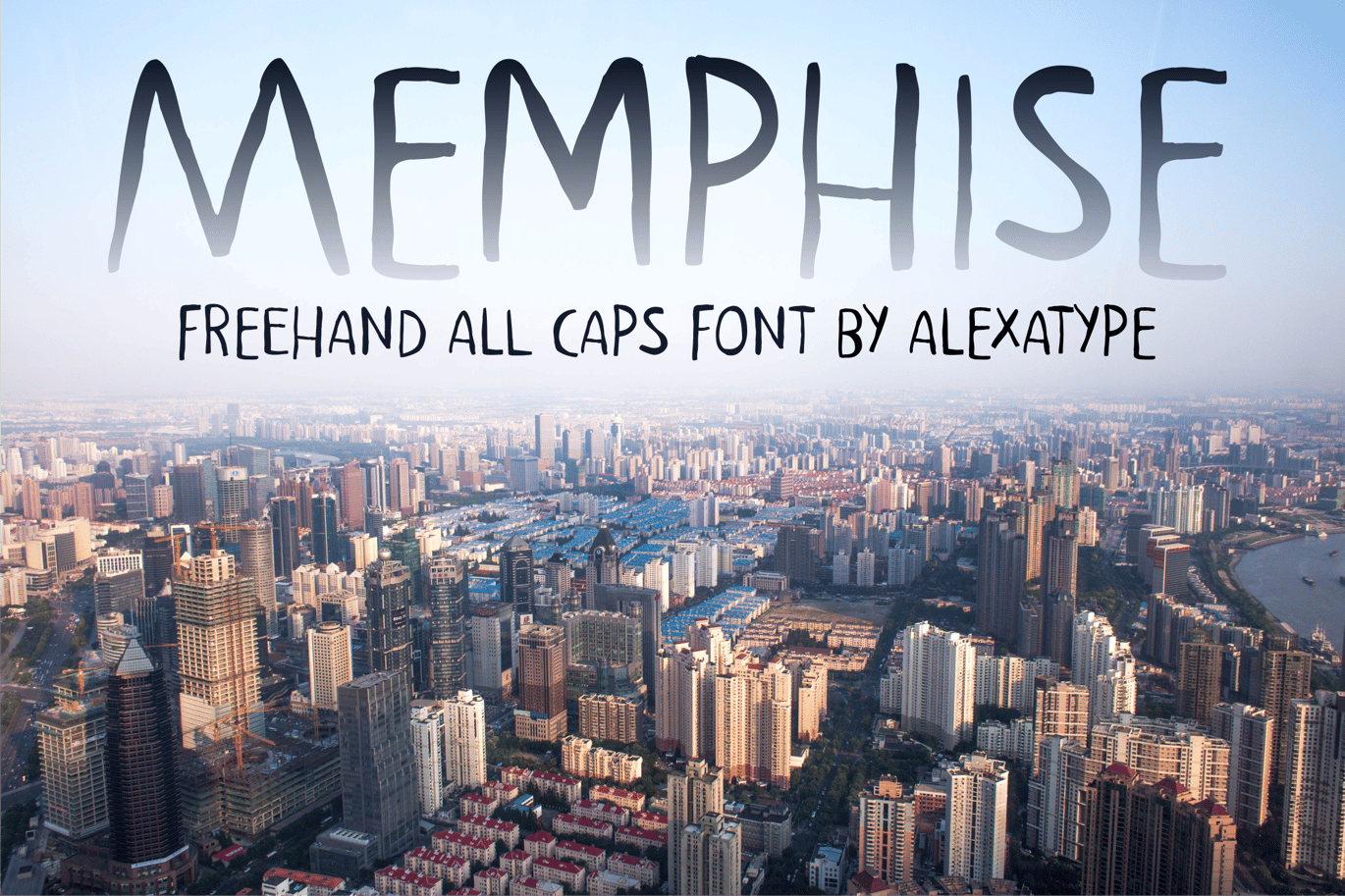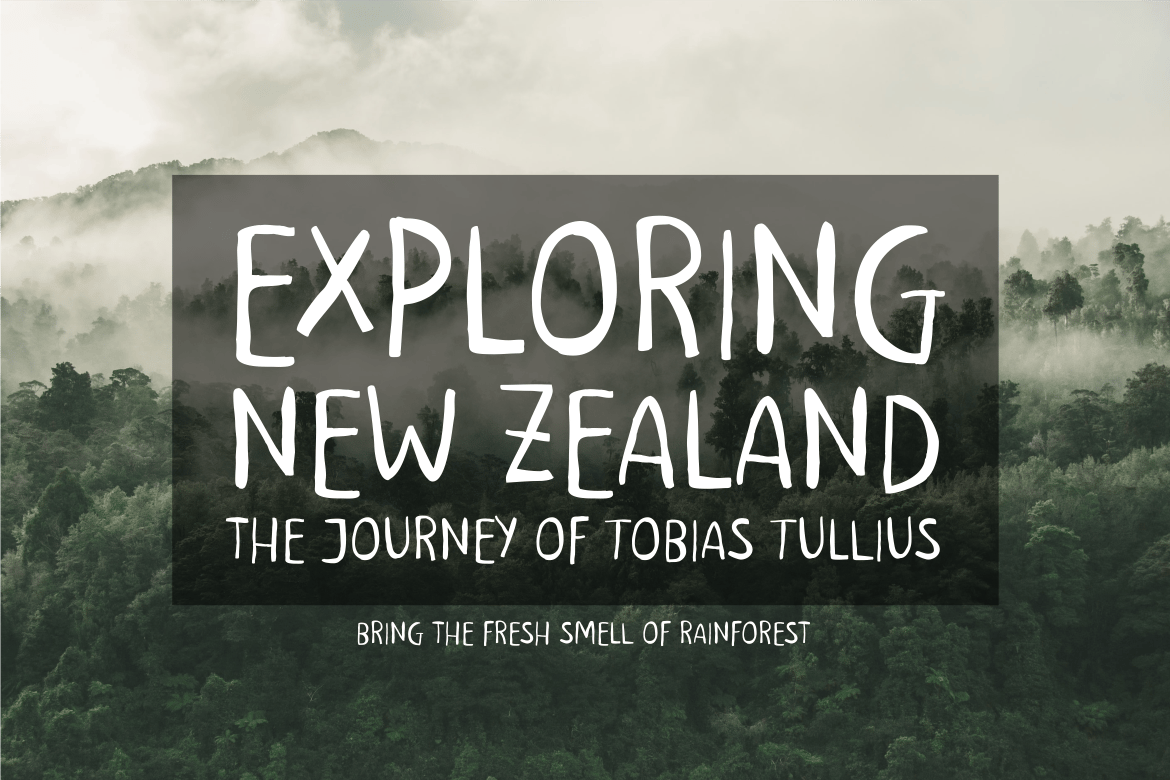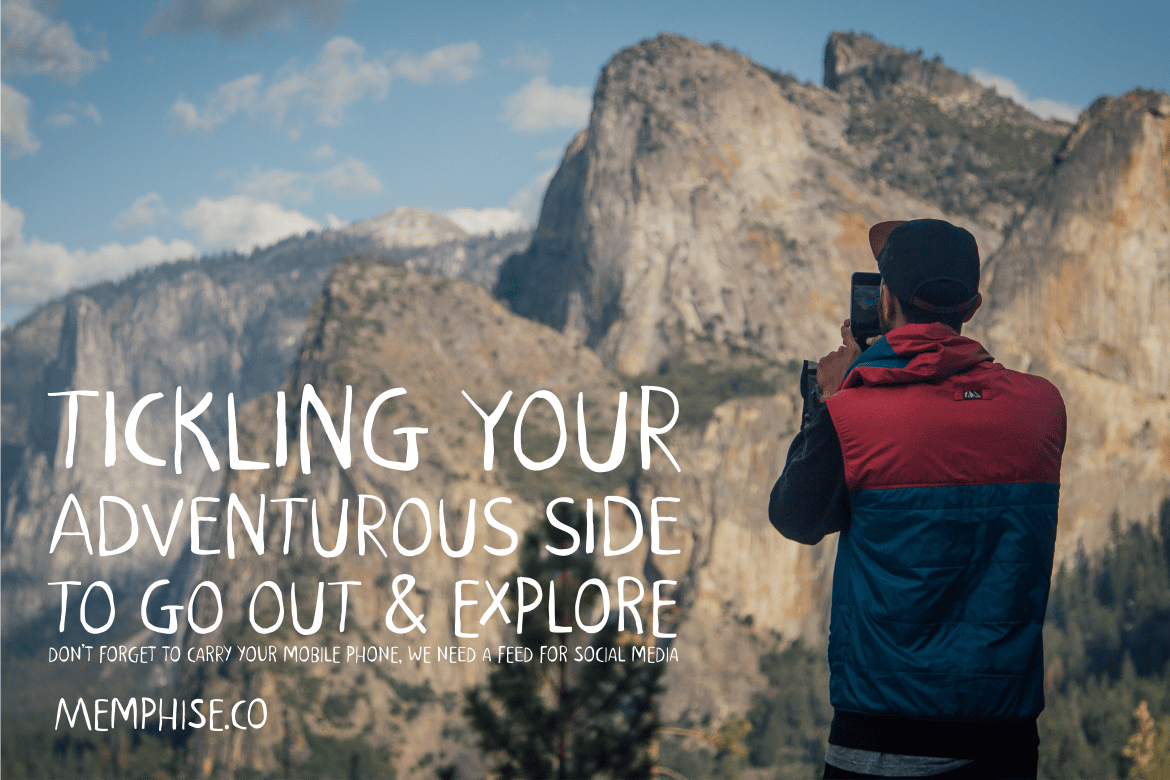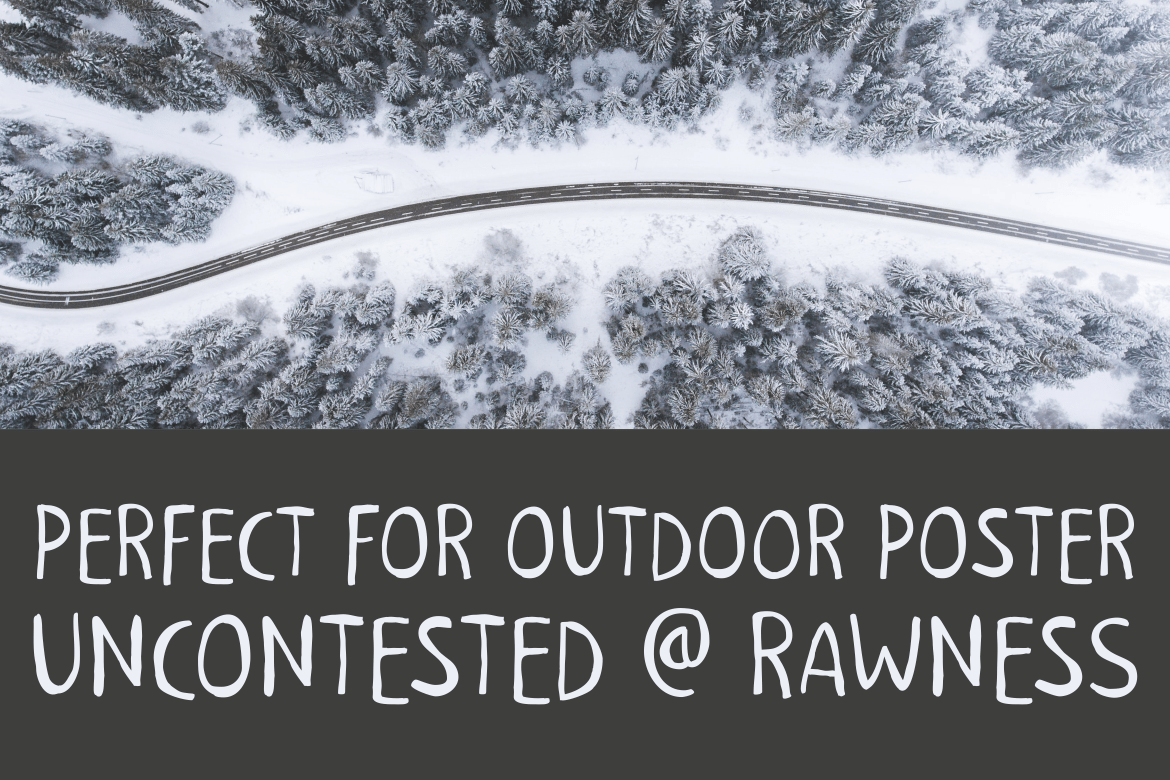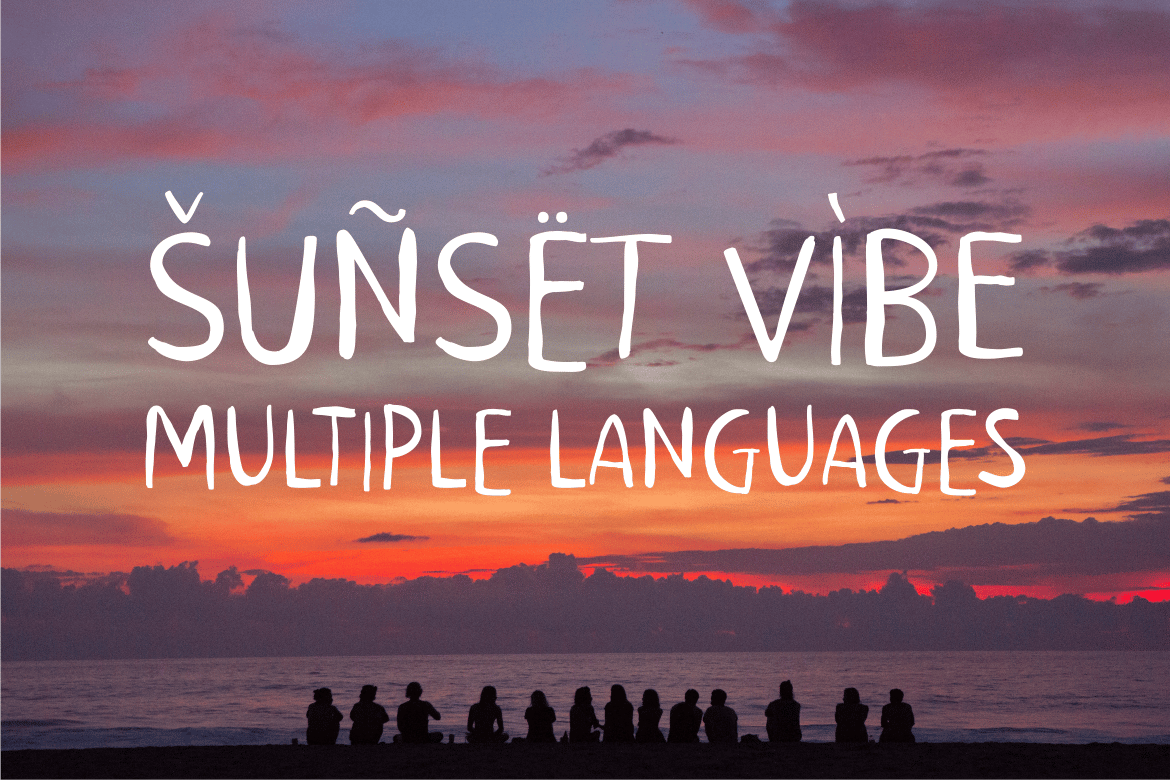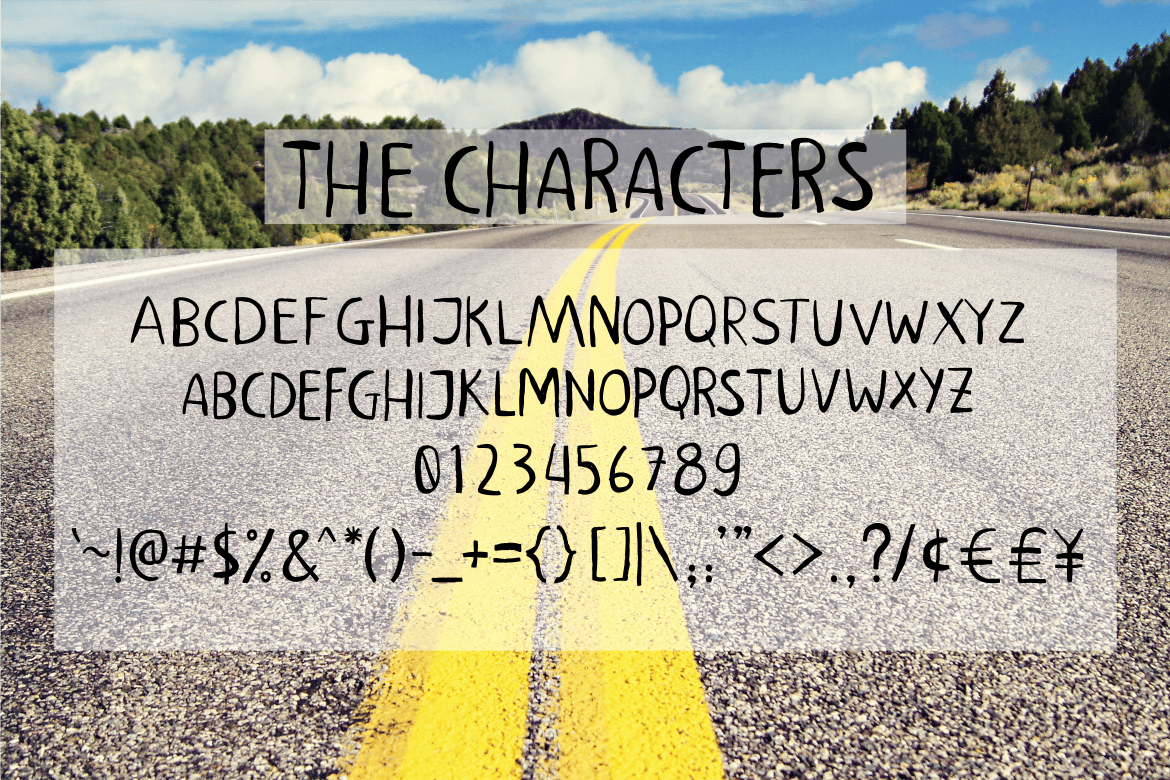
Rustic Adventure Font – Memphise
Memphise is a rustic, weathered display font designed for travel-inspired visuals, outdoor branding, and adventure storytelling. Its textured, slightly distressed letterforms bring a sense of wanderlust and authenticity, making it perfect for travel blogs, nature posters, hiking apparel, and photography overlays. Whether you’re crafting inspiring social media graphics or rugged outdoor signage, Memphise adds an organic, untamed feel to any design.
- Raw & Rustic Aesthetic – Perfect for adventure-themed designs and nature branding.
- Handcrafted, Distressed Look – Creates an authentic, weathered texture.
- Ideal for Outdoor Posters & Travel Graphics – Enhances scenic landscapes and adventure typography.
- Great for Branding & Apparel – Works seamlessly on outdoor gear, hiking merch, and rustic packaging.
Memphise is the ideal companion for travel bloggers, outdoor enthusiasts, and brands looking to capture the raw beauty of nature. Its distressed letterforms evoke adventure and exploration, making it perfect for wilderness campaigns, tourism branding, and lifestyle editorials. Whether you’re designing sunset-inspired posters, mountain expedition gear, or organic product packaging, Memphise ensures your typography feels authentic, free-spirited, and adventurous.